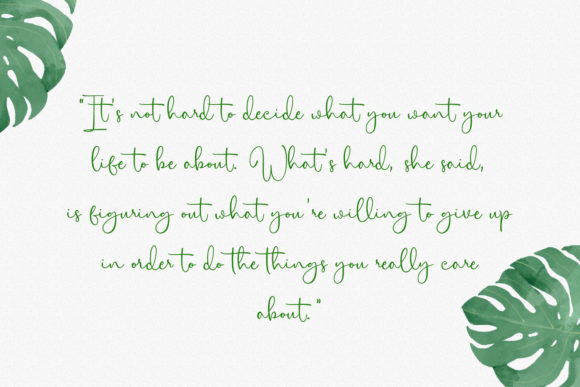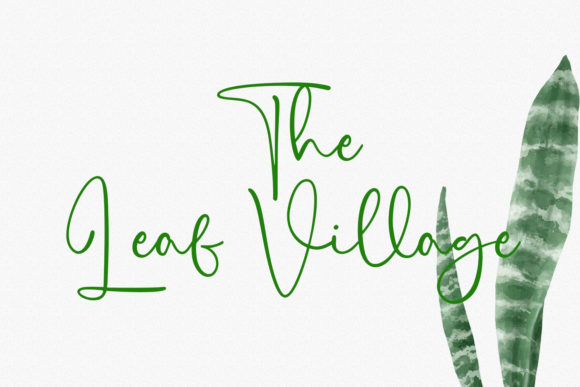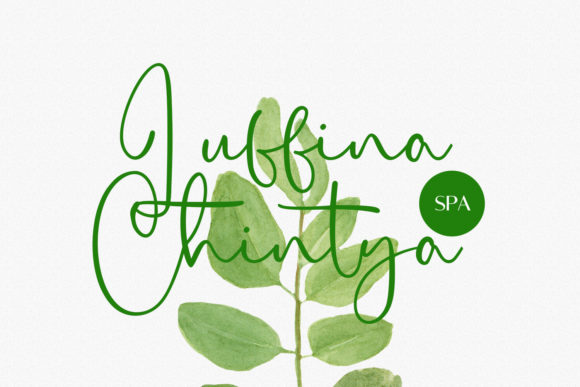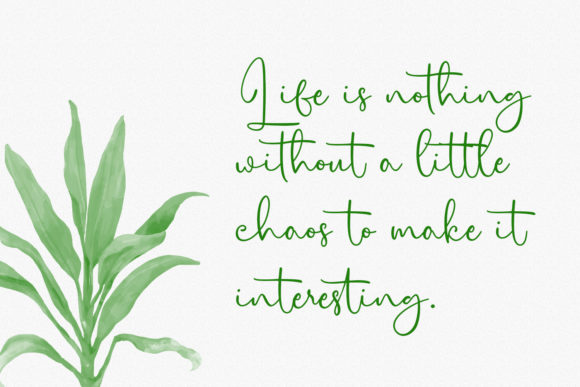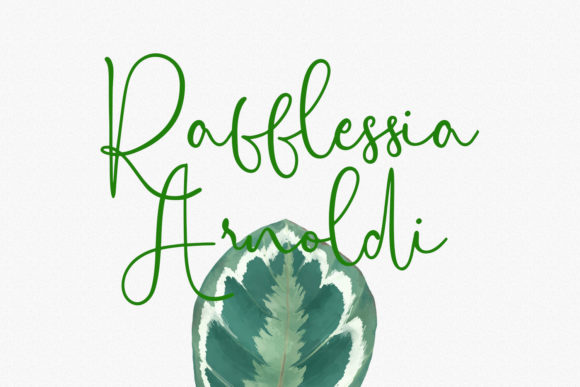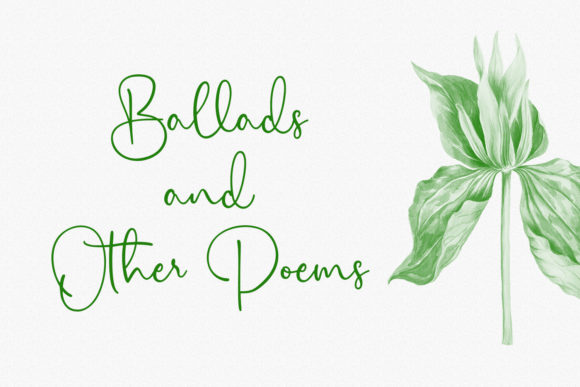
The Perfect Blend of Elegance and Creativity: Citrus Cycle Script Font
Remember the moment when a spark of inspiration struck, and your creative mind started racing with ideas? It’s a feeling that every designer knows well – the thrill of bringing a new concept to life. For many of us, it all starts with the perfect font, the one that sets the tone for our entire project.
Enter Citrus Cycle Script Font, a beautifully crafted script font that adds a touch of magic to any design. Whether you’re creating social media graphics, crafting calligraphy scripts for DIY projects, or simply looking to elevate your branding, this font is sure to inspire your creativity. With its elegant and refined design, Citrus Cycle Script Font is a valuable asset for any designer looking to add a personal touch to their work.
Citrus Cycle Script Font Features
- Font Family: Citrus Cycle Script
- Unique Characteristics: Handwritten, cursive script font with a natural and elegant feel, perfect for creative and artistic designs
Citrus Cycle Script Font Review
I recently had the chance to work with the Citrus Cycle Script Font, and I must say it’s a unique and stylish addition to any design project. ✨ The fluid, handwritten feel is perfect for creating a warm and inviting atmosphere in branding, advertising, or even digital products.
- ✨ The font’s high x-height makes it easy to read, even at smaller font sizes.
- ✨ The subtle imperfections and flair of the script font give it a human touch, making it perfect for creative or artisanal brands.
- ✨ The font family includes multiple weights and styles, offering a lot of flexibility for designers.
- ⚠️ The font may not be suitable for use in small text or body copy, as it can be difficult to read.
- ⚠️ The script font may not be ideal for formal or professional applications, as it can come across as too casual or playful.
Overall, I’m impressed with the Citrus Cycle Script Font’s unique character and versatility. It’s a great choice for designers looking to add a touch of personality to their projects, but it may not be the best fit for every design challenge.
Tips for Getting the Most Out of Citrus Cycle Script Font
For best results, use Citrus Cycle Script Font for titles, headings, and short text passages. Avoid using it for large blocks of text, as it can be difficult to read. Experiment with different font sizes and colors to create a visually appealing design.
Citrus Cycle Script Font is perfect for:
- Use the Citrus Cycle Script Font for the menu item names, such as “Earl Grey Delight” or “Rose Petal Tea”.
- Pair the font with a clean and simple sans-serif font for the menu descriptions.
- Experiment with different font sizes and colors to create visual hierarchy and emphasis.
- Watercolor illustrations of tea leaves or flowers to add a touch of whimsy.
- A warm and inviting color palette, such as pastel shades or golden hues, to evoke a sense of comfort.
- A rustic or vintage-inspired background texture to add depth and character.
- Use the Citrus Cycle Script Font for the main invitation text, such as the wedding date, time, and location.
- Pair the font with a elegant serif font for the couple’s names and other important details.
Alternatives to Citrus Cycle Script Font
Carolyna Pro is a modern script font ideal for luxury branding, wedding invitations, and high-end packaging. It features elegant and flowing lines, making it perfect for designers looking for a sophisticated and refined aesthetic. Compared to Citrus Cycle Script Font, Carolyna Pro has a more refined and polished feel, making it suitable for premium brands.